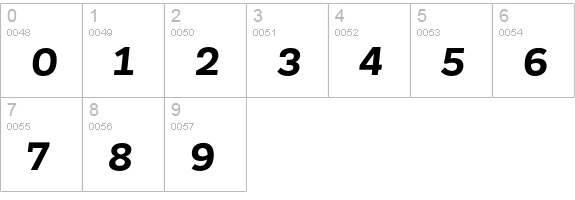
Newslab ExtraBold Italic is an extra-heavy, attention-grabbing, italic variant in the Newslab typeface family \xE2\x80\x94 well suited to high-impact headlines, posters, and bold branding.
Newslab ExtraBold Italic font is a striking and powerful typeface that exudes confidence and modernity. Its bold weight and slanted style make it perfect for headlines, titles, and other attention-grabbing text. The combination of extra boldness and italicized form gives this font a strong and dynamic presence on any design project. What sets Newslab ExtraBold Italic font apart is that it is freely available to download at FontsMarket.com. This means that you can easily access this high-quality typeface without any cost, making it a valuable asset for designers, creatives, and anyone looking to enhance their visual communication. Whether you're working on a branding project, editorial design, or advertising campaign, Newslab ExtraBold Italic font will add a touch of sophistication and boldness to your work. Download it today and elevate your designs with this versatile and impactful font.